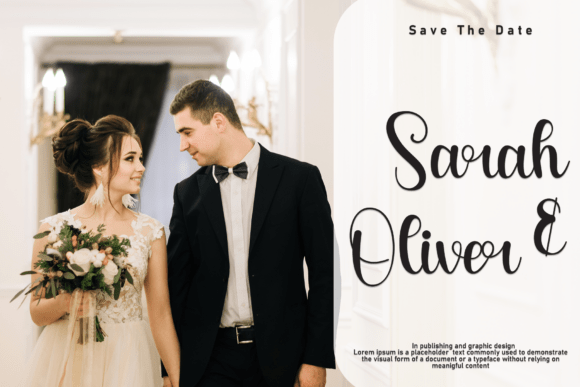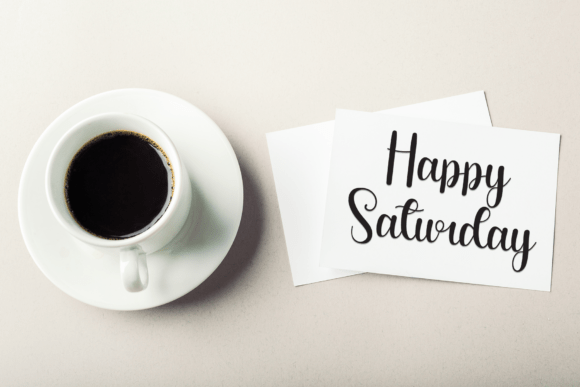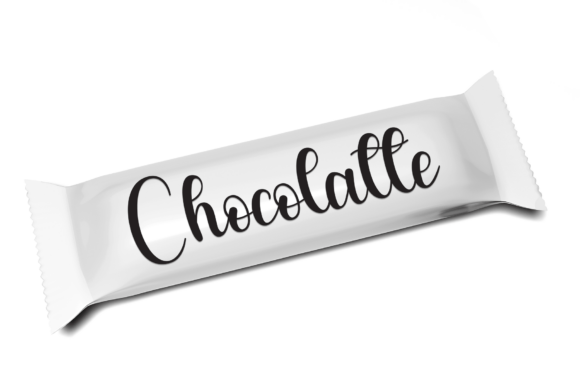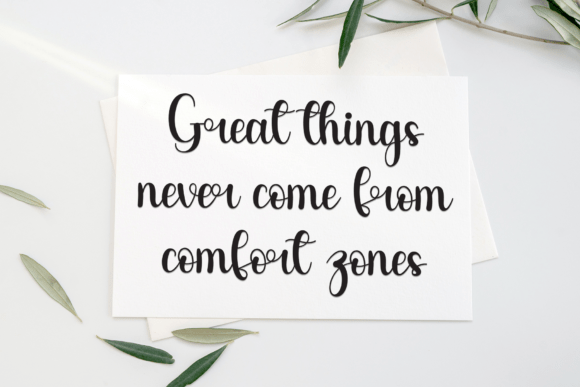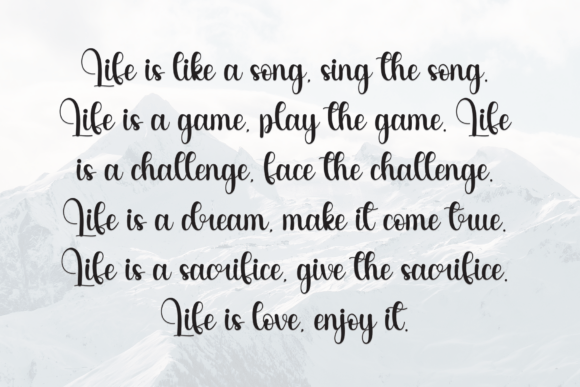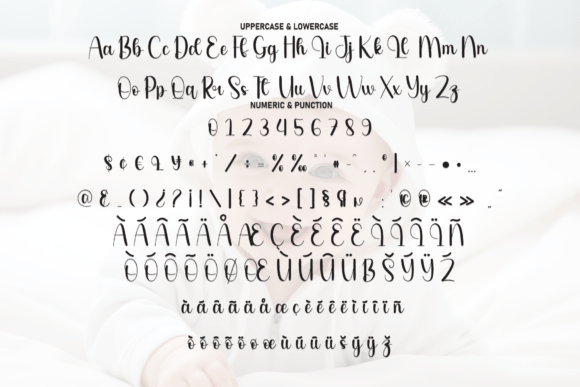
Babyish Font: The Ultimate Choice for Adding Warmth and Whimsy to Your Designs
Welcome to the captivating world of Babyish Font, a handwritten display font that radiates a blend of warmth and geniality in every stroke. Infused with an endearing and jovial allure, this font stands as an ideal companion for creating personalized wedding invitations, heartfelt greeting cards, or any design project seeking an infusion of enjoyment. Revel in the essence of playfulness and charm encapsulated in each word with this unique and enchanting font!
The Charm of Babyish Font
Babyish Font is more than just a typography; it’s an experience. Its handcrafted letters exude a sense of intimacy and warmth, reminiscent of handwritten notes from a loved one. The font’s playful and whimsical nature makes it perfect for designs that require a personal touch, such as:
- Wedding invitations and announcements
- Greeting cards for special occasions
- Customized gifts and packaging
Key Features of Babyish Font
So, what makes Babyish Font so special? Here are some of its key features:
- Handwritten style: Each letter is carefully crafted to resemble handwriting, giving your designs a personal and human touch.
- Playful and whimsical: Babyish Font is perfect for designs that require a dash of fun and playfulness.
- Highly legible: Despite its playful nature, the font remains highly legible, making it suitable for body text and headlines.
- Versatile: Babyish Font can be used for a wide range of design projects, from digital to print.
Tips for Using Babyish Font
To get the most out of Babyish Font, here are some tips to keep in mind:
- Pair with contrasting fonts: Combine Babyish Font with a clean, sans-serif font to create visual interest and hierarchy.
- Experiment with colors: Try pairing the font with bright, bold colors to amplify its playful nature.
- Use it sparingly: While Babyish Font is beautiful, it can be overwhelming if overused. Use it for headlines or key text elements.
- Add texture and embellishments: Consider adding texture, patterns, or embellishments to enhance the font’s playful nature.
Still looking for inspiration? Here are some ideas to get you started:
- Create a custom wedding invitation suite with Babyish Font as the centerpiece.
- Design a set of playful greeting cards for a children’s party or special occasion.
- Develop a brand identity for a children’s product or service using Babyish Font.
- Use the font to create eye-catching social media graphics and posts.
In conclusion, Babyish Font is a unique and enchanting font that can add warmth, whimsy, and playfulness to your designs. With its handcrafted letters, playful nature, and versatility, it’s perfect for a wide range of design projects. Whether you’re a designer, crafter, or DIY enthusiast, Babyish Font is sure to become a favorite in your toolkit. So why wait? Dive into the captivating world of Babyish Font and discover the magic for yourself!